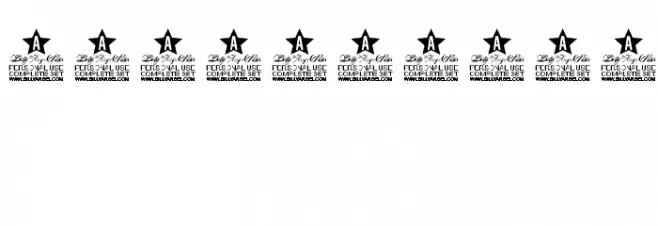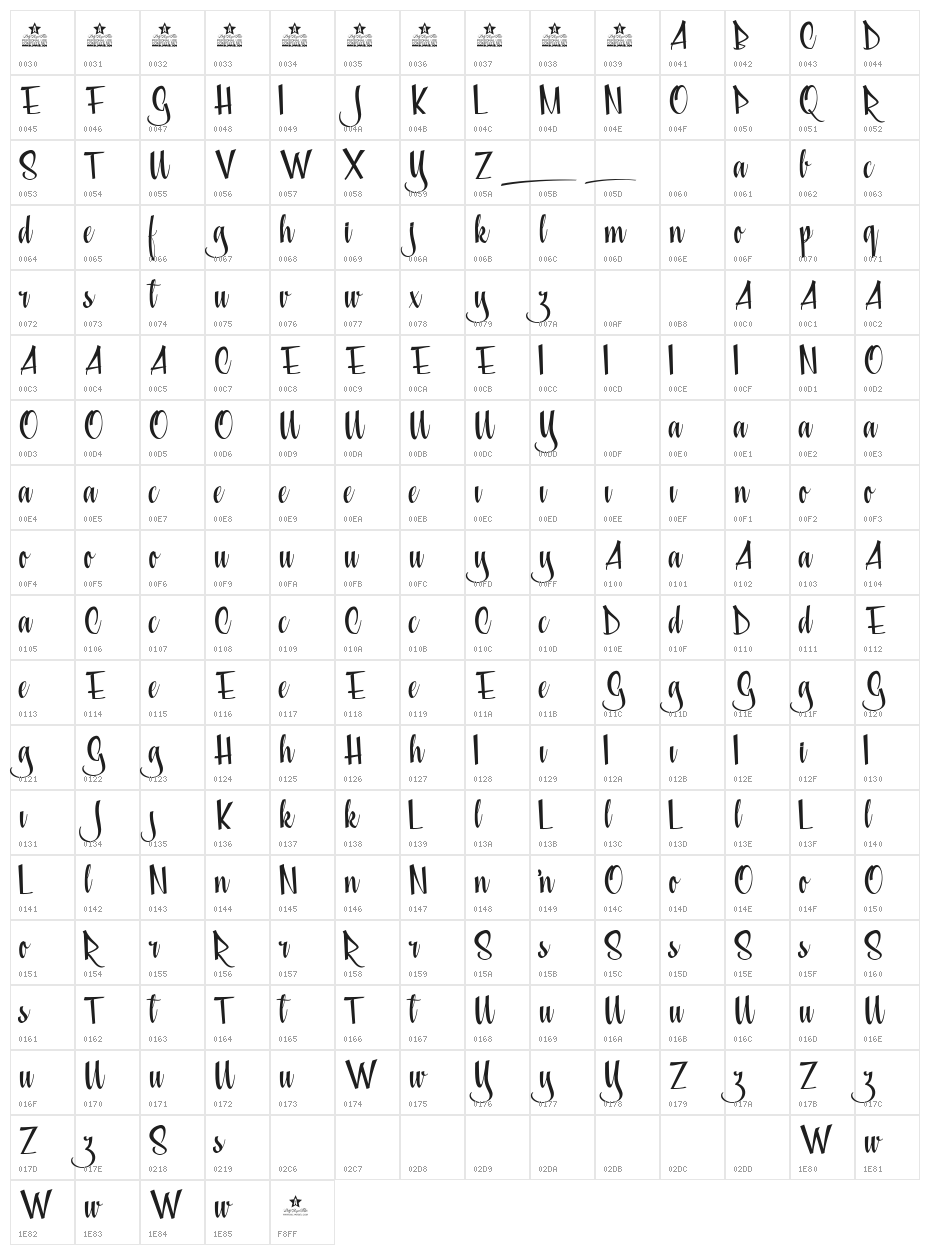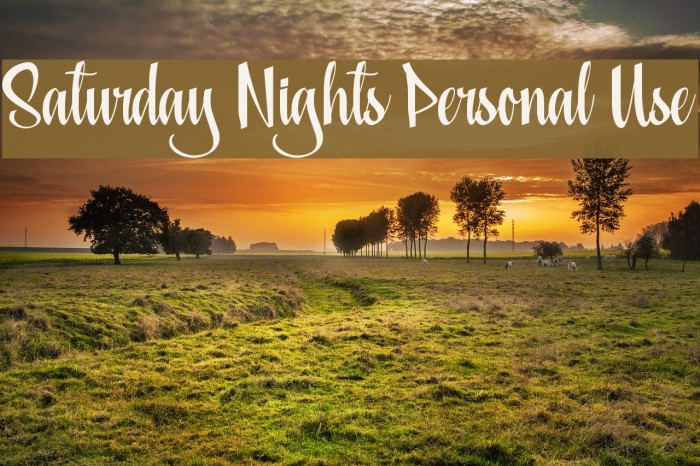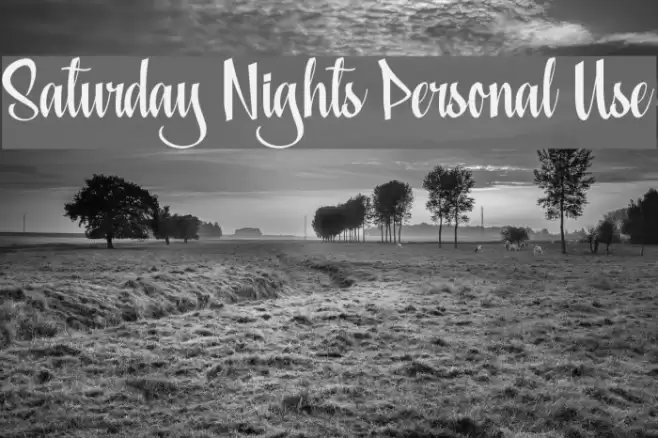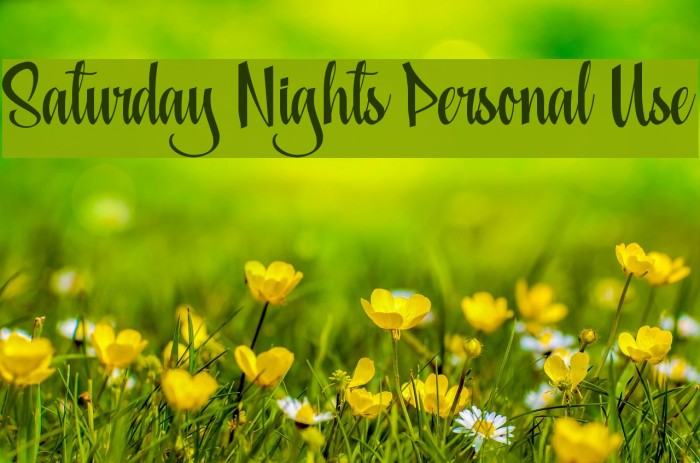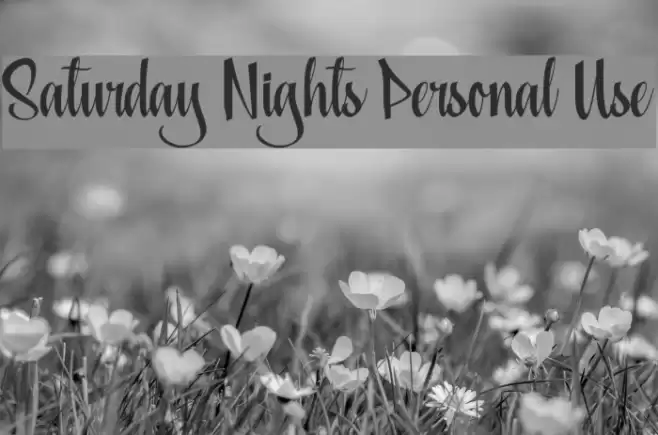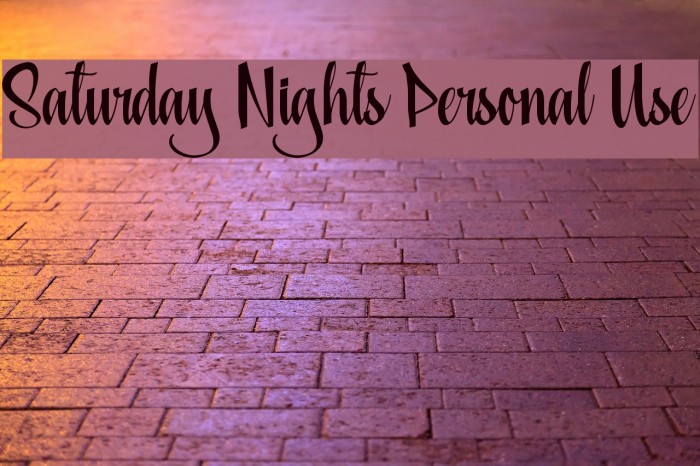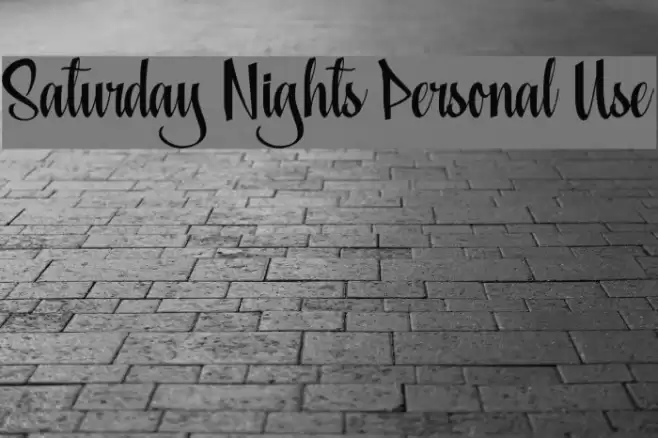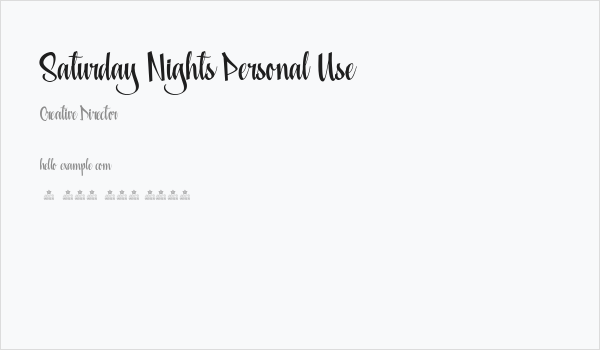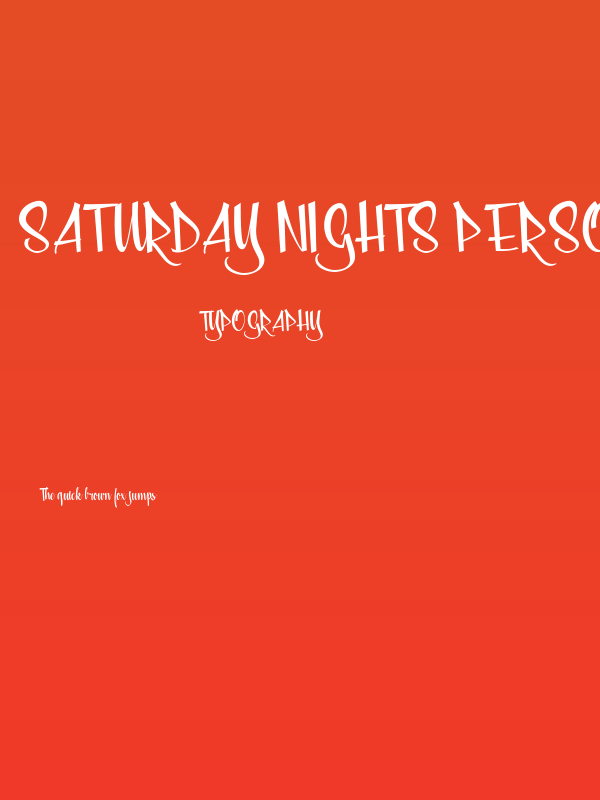
Saturday Nights Personal Use Font
Saturday Nights Personal Use Description
This font features a dynamic and expressive style, combining elements of both script and decorative typography. The uppercase letters are bold and angular, with sharp edges and a slight slant, giving them a modern and edgy appearance. The lowercase letters are more fluid and cursive, with elegant loops and swashes that add a touch of sophistication. The numbers and special characters maintain the same stylistic flair, ensuring consistency across all elements. This font is ideal for creating eye-catching designs that require a personal and artistic touch.
| Use Case | Headlines, Logos, Artistic projects |
| Proposed Projects | Ideal for invitations, posters, branding, and artistic projects that require a personal touch. |